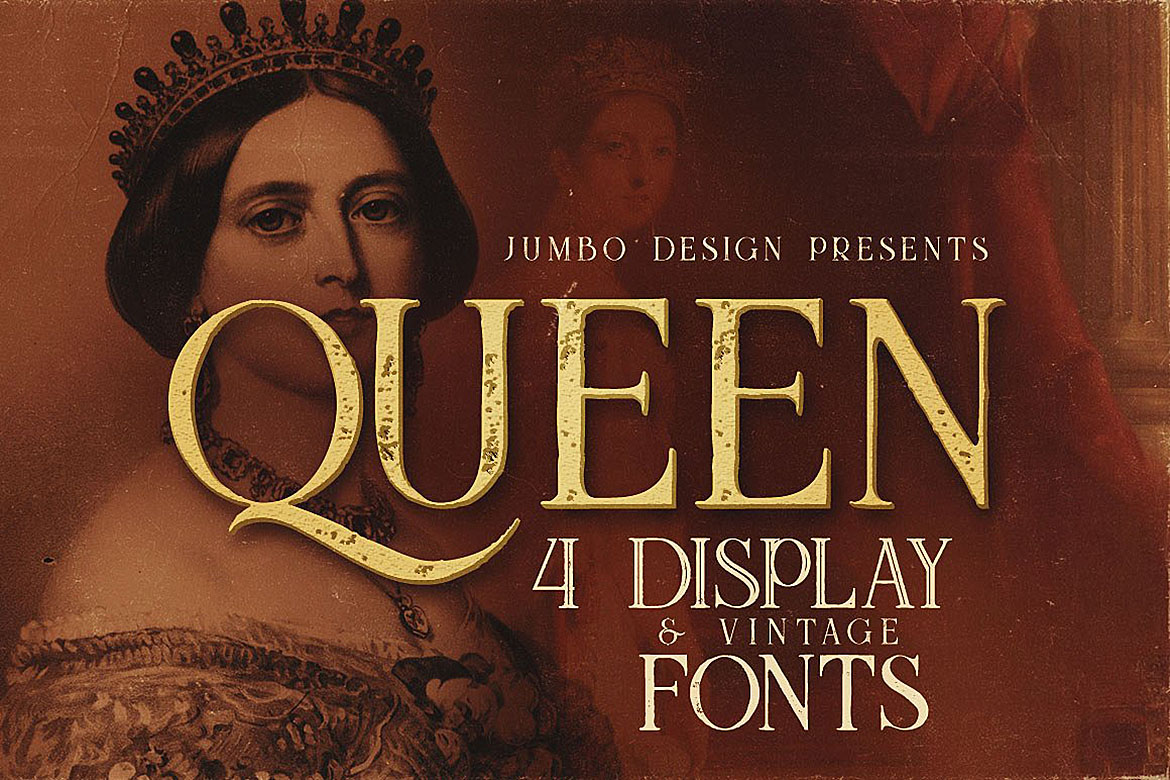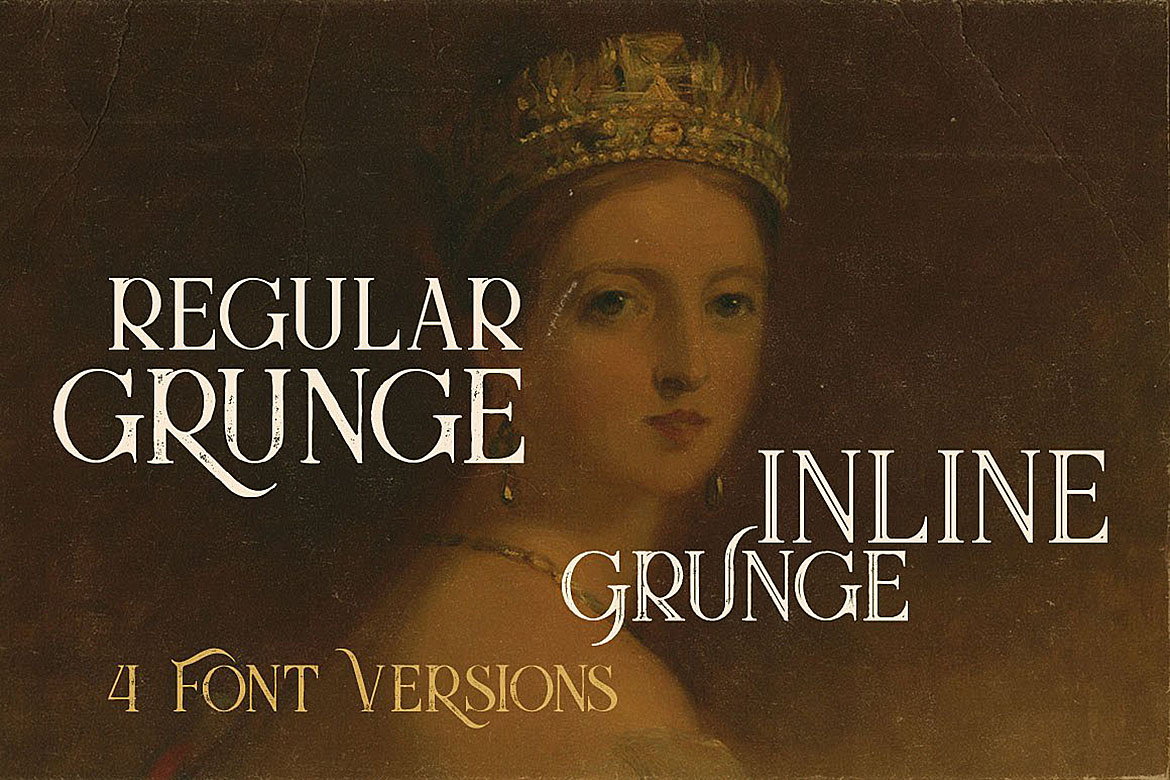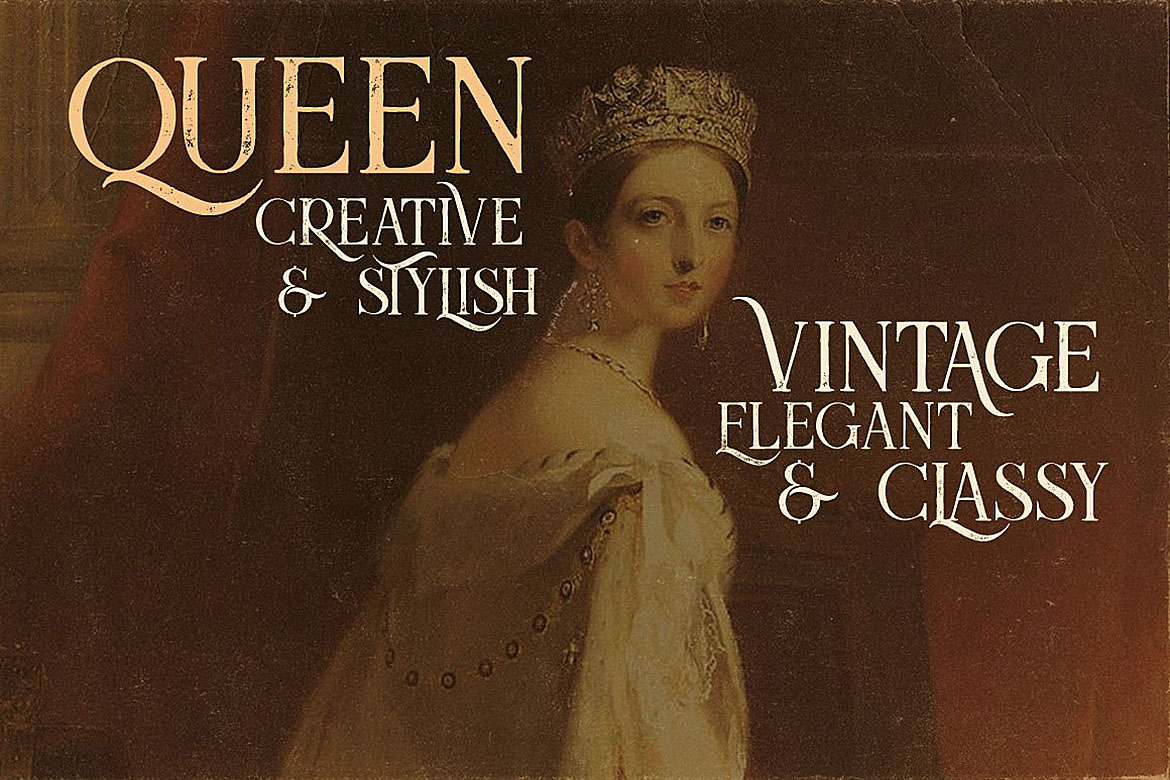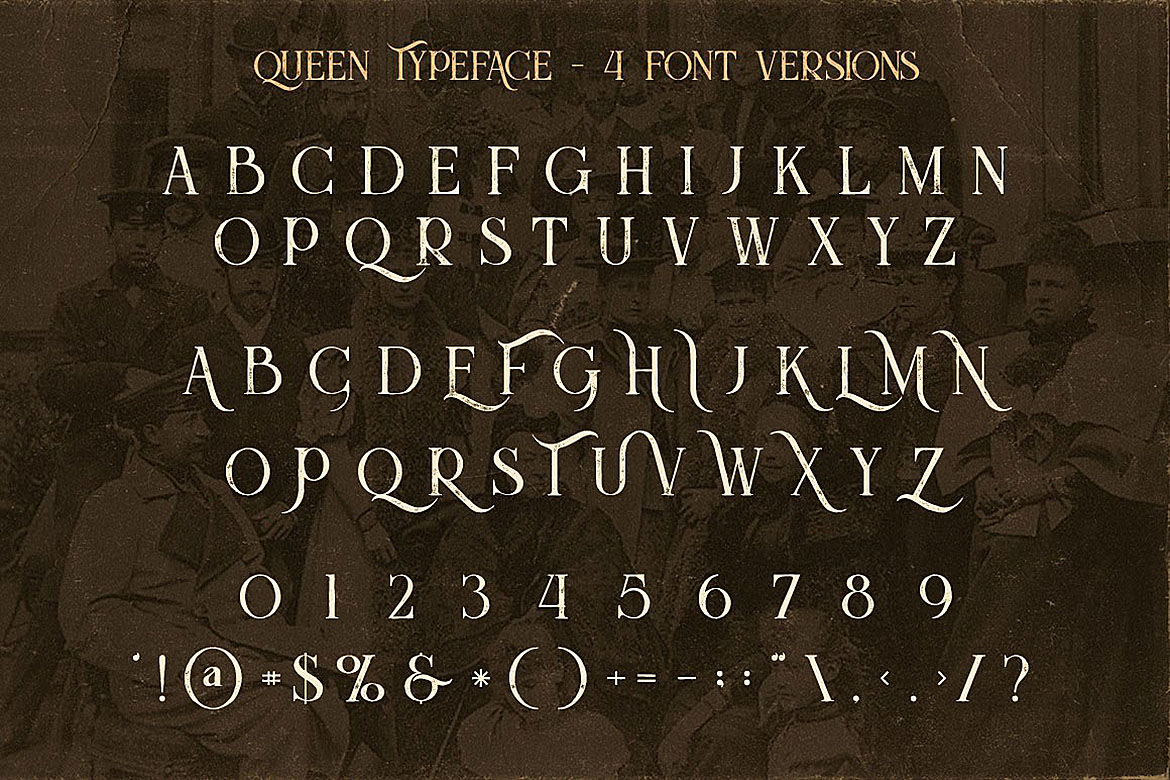
Queen Font
About the Queen Font
Let us introduce you to Queen Font, where timeless design meets modern craftsmanship. Queen is a vintage ornamental display font that comes in different styles for maximizing your design options. This stunning display font is regal and classic, and lives entirely up to its namesake.
Queen Font excels as a display typeface for headlines, logos, and short impactful statements in branding materials and posters. Its ornate details make it ideal for projects requiring a touch of vintage elegance or regal sophistication. Avoid using Queen for body text or UI elements; its decorative nature reduces readability in extended passages.
This font’s personality is undeniably bold and classic. It projects authority and timeless style. To maintain visual harmony, pair Queen with a clean sans-serif like Montserrat for body copy or a modern geometric sans-serif like Futura for a more contemporary feel. Alternatively, a subtle serif like Garamond can add warmth without competing with Queen’s decorative elements.
For a more playful approach, consider pairing Queen with a handwritten script font, carefully selecting one with a similar level of formality to avoid jarring contrast. Ultimately, the best pairings will depend on the project’s specific needs and overall aesthetic.